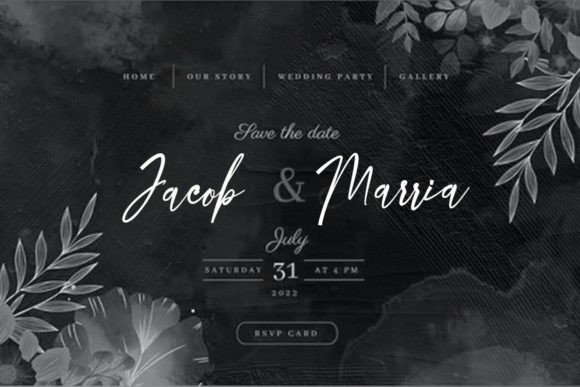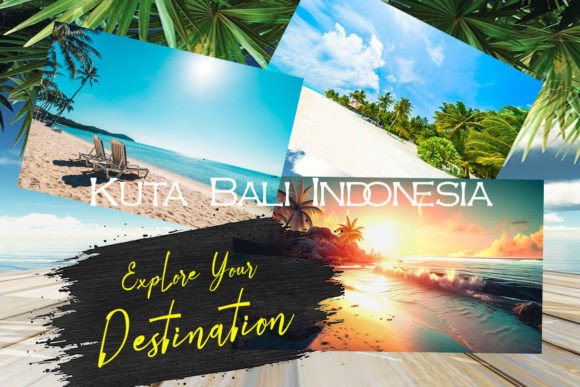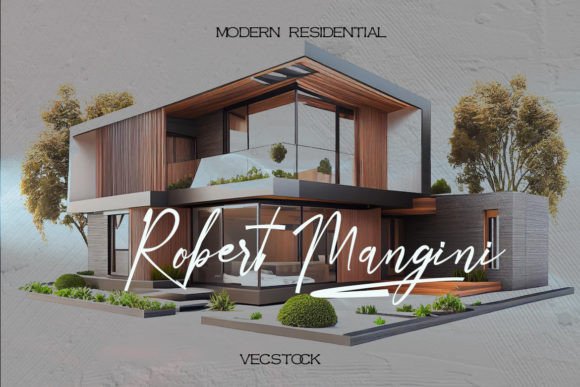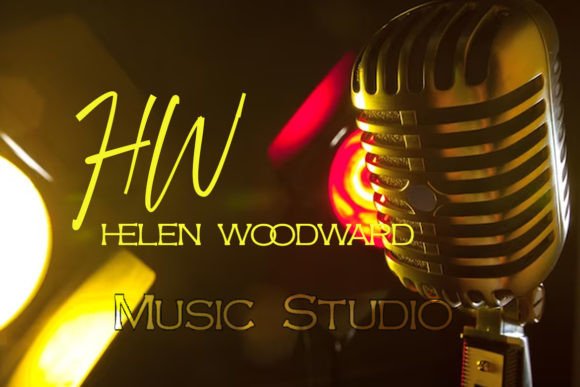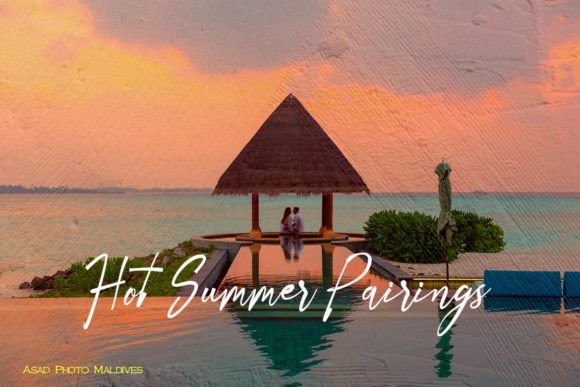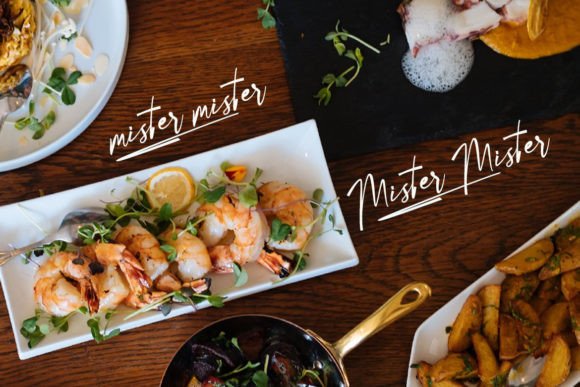
Introduction to Kids Panda Font
Remember the moment when you stumbled upon the perfect design resource for your creative project? The one that took your breath away and made your heart skip a beat? That’s exactly what happened to many designers when they discovered the Kids Panda Font. This beautiful and refined script font has been making waves in the design community with its elegant and playful style.
With its PUA encoded feature, accessing the amazing glyphs and ligatures is a breeze, making it an ideal choice for designers who crave high quality and versatility. Whether you’re working on a wedding design, social media post, or logo, the Kids Panda Font is a valuable addition to your design arsenal. And the best part? It’s available for free download, making it an accessible design resource for creatives of all levels.
From its transparent background to its numerous design applications, the Kids Panda Font is a game-changer for designers who demand the best. So, what are you waiting for? Dive into the world of Kids Panda Font and discover a new level of creativity and sophistication in your designs.
Key Features of Kids Panda Font
- Unique and playful design, perfect for a creative project or children’s theme.
- Designed to be highly legible and readable, even at small font sizes.
- Perfect for various applications such as logos, icons, graphics, and more, adding a fun and playful touch to any design.
Honest Review: Kids Panda Font
I recently stumbled upon the Kids Panda Font, and I must say it’s a delightful addition to my design resource library. As a designer, I’m always on the lookout for high-quality fonts that can elevate my creative projects.
The Kids Panda Font is a free download that offers a transparent background, making it perfect for overlaying on images or using as a text element in designs. I appreciate how versatile it is and how easily it can be customized to fit different design styles.
- Cute and playful design that’s perfect for kids’ projects or nursery decor.
- High-quality font with clear and legible letters.
- Transparency option for easy layering and customization.
- May not be suitable for formal or professional projects due to its playful nature.
- No bold or italic styles available, which might limit its use in certain designs.
Overall, I’m impressed with the Kids Panda Font and would definitely recommend it to designers working on creative projects that require a fun and playful touch.
Tips for Getting the Most Out of the Kids Panda Font
To get the most out of the Kids Panda Font, use it with a high-quality design resource, such as a bright and colorful background. You can also use the font with a transparent background to add a creative touch to your project.
The Kids Panda Font is perfect for creating a fun and playful design for a children’s party invitation, a nursery decoration, or a creative project. You can also use the font with a free download of a matching graphic element, such as a panda icon, to add a cohesive look to your design.